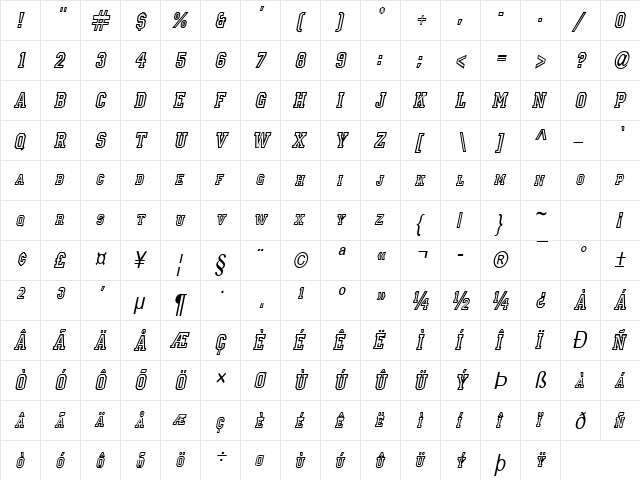
Princeton-Condensed Italic Font Preview
Design Context for Princeton-Condensed Typeface
Princeton-Condensed is a composed and adaptable typeface that performs quietly and consistently across a wide range of design contexts. The dynamic lean of this cut emphasises speed and emphasis in any layout. The condensed width makes it efficient for tight spaces without sacrificing legibility.